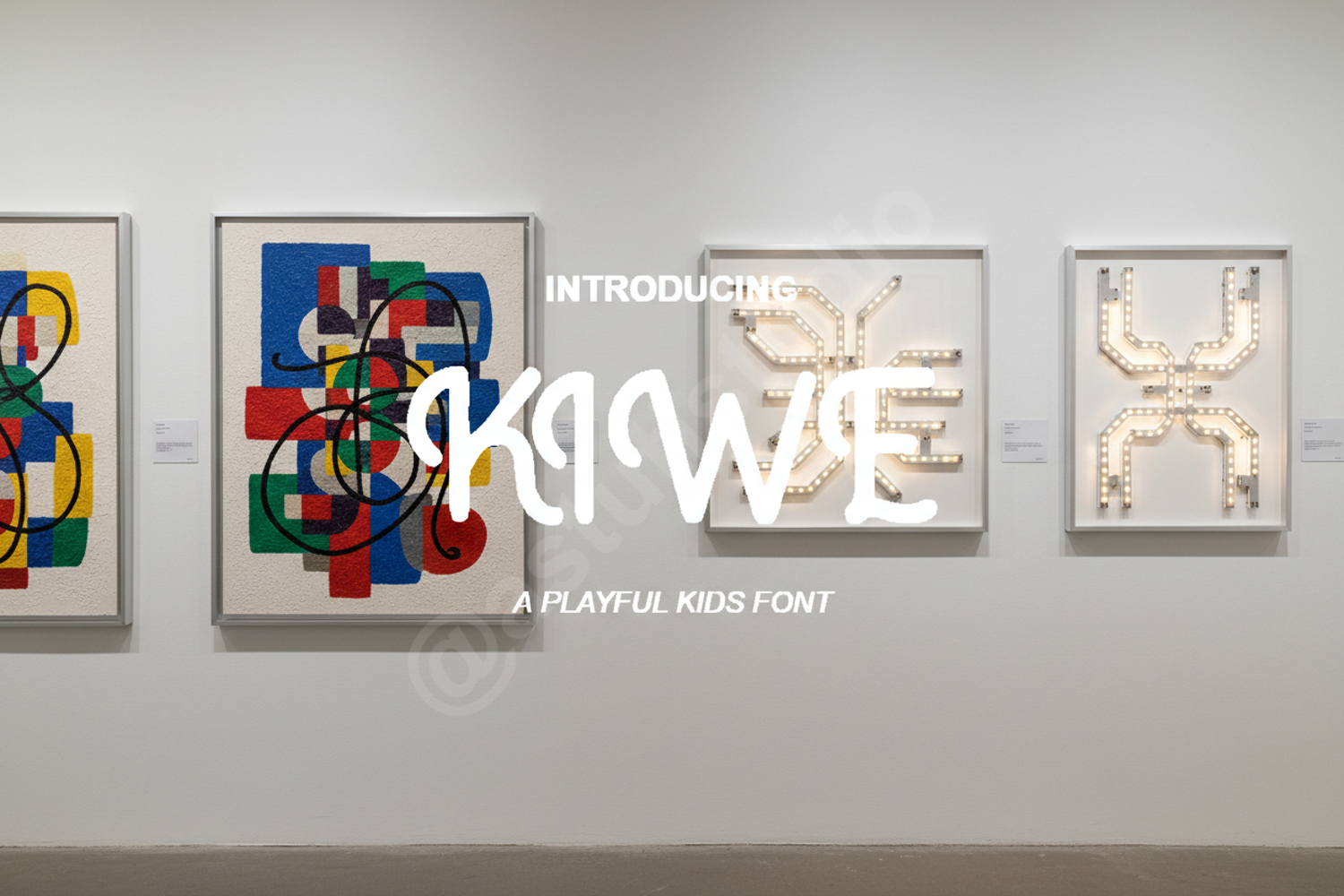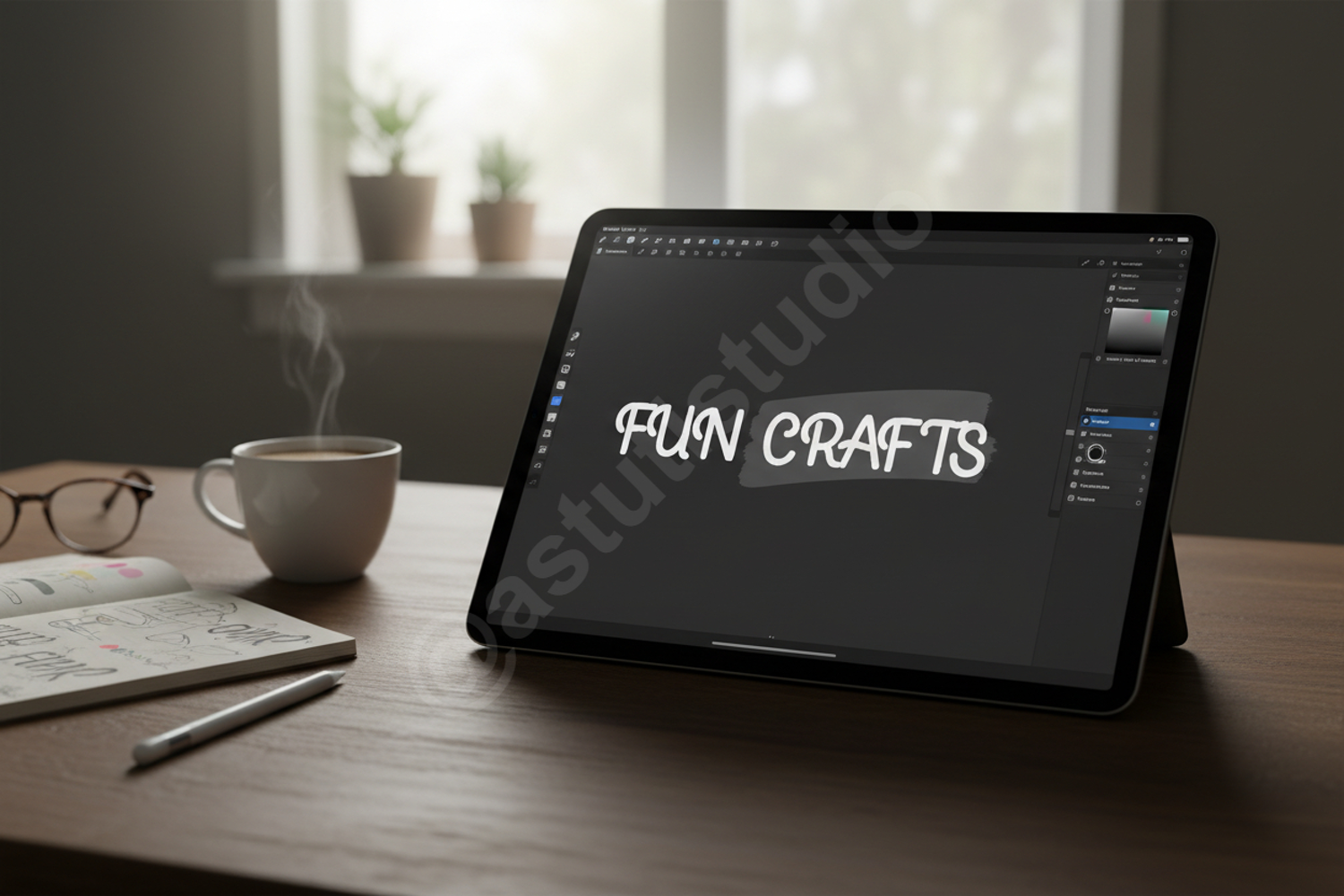
Kiwe | Modern Minimalist Sans Serif
Kiwe
Kiwe is a premium sans serif typeface that embodies modern elegance and minimalist design. Crafted with precision, this font offers a clean and sophisticated aesthetic that ensures your projects stand out with professional clarity. Whether you are building a brand from scratch or looking for the perfect editorial companion, Kiwe provides the versatility and balance required for high-end design work.
- Branding and Visual Identity: Create memorable logos and cohesive brand guidelines.
- Editorial Design: Perfect for magazine layouts, striking headers, and legible body text.
- Digital Marketing: Elevate social media graphics and modern website interfaces.
- Print Media: Ideal for business cards, posters, and luxury product packaging.
- Modern Signage: Clean, geometric lines ensure maximum readability at any scale.